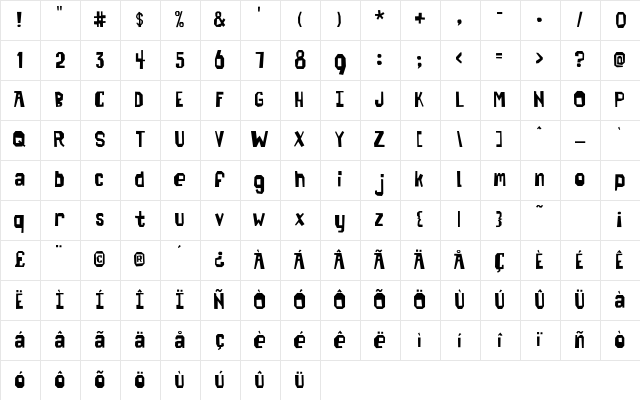
SpaceCowboy Regular Free Font
SpaceCowboy Regular
Design Context for SpaceCowboy
SpaceCowboy echoes the hand-painted signage and woodblock typography of the American frontier, with a warm, rugged personality.
Font Pairing: Combine SpaceCowboy with a simple slab or neutral sans - period-accurate companions reinforce the vintage feel without competing for attention.
Pro Tip: Use SpaceCowboy for short, impactful bursts of text - it shines in poster headlines and product names rather than extended copy.